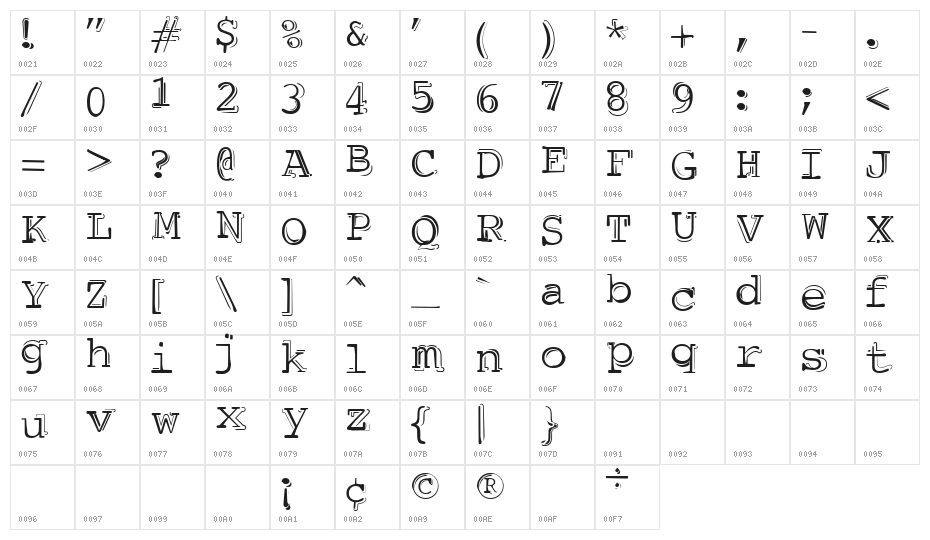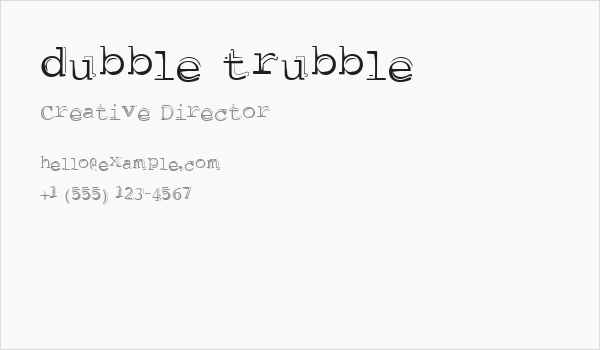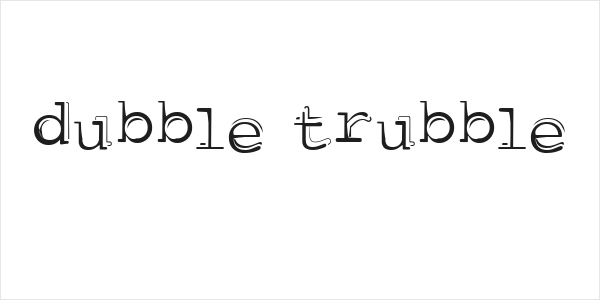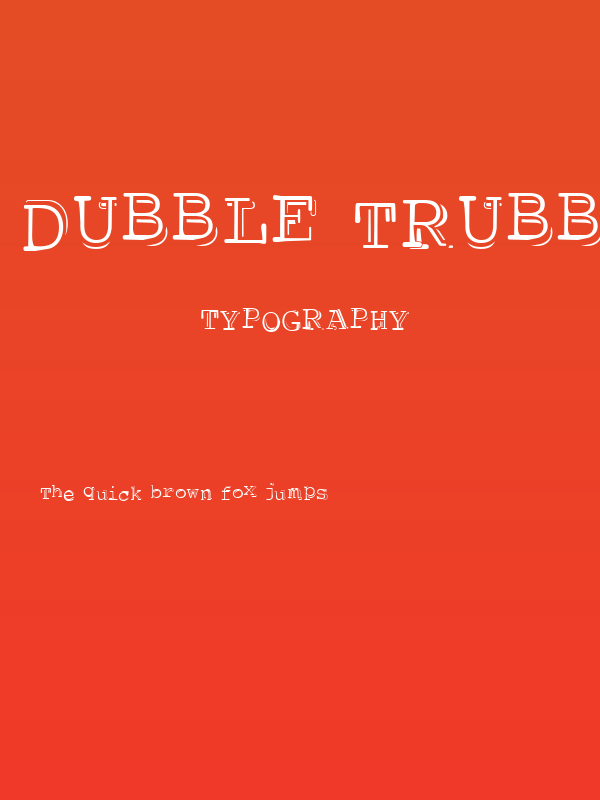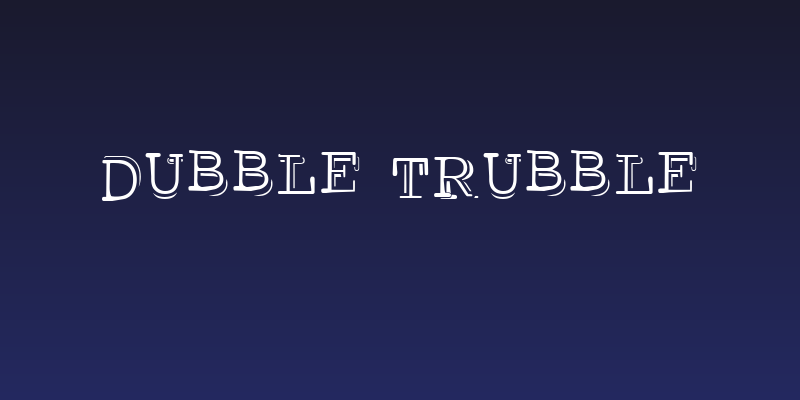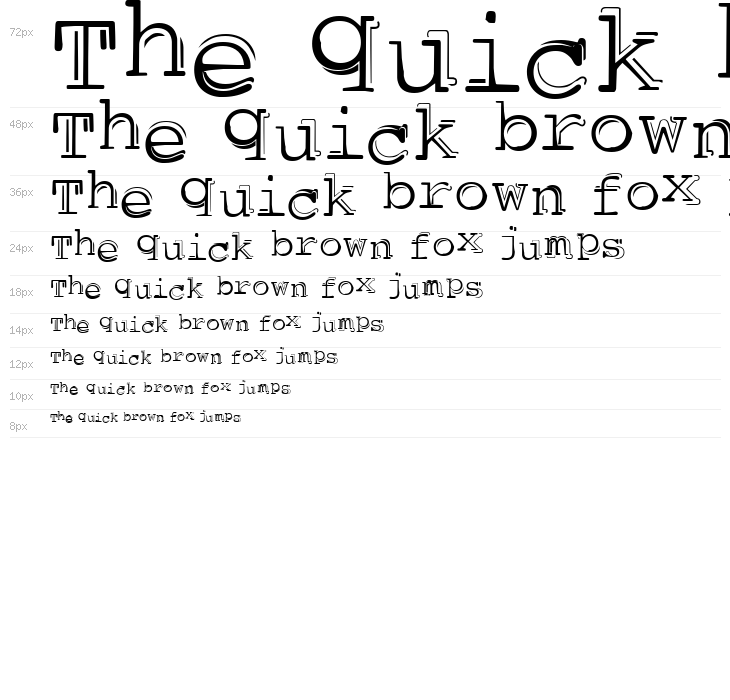
dubble trubble Font
dubble trubble Description
This font features a playful and bold design with a unique double-outline effect that adds depth and dimension to each character. The uppercase letters are distinct and eye-catching, while the lowercase letters maintain a consistent style that complements the overall aesthetic. The numerals are clear and easy to read, with a similar double-outline treatment. Special characters are included, offering a comprehensive set for various design needs. The font's quirky and dynamic appearance makes it ideal for projects that require a fun and engaging visual impact.
| Proposed Projects | Ideal for children's books, playful branding, posters, and creative advertising. |